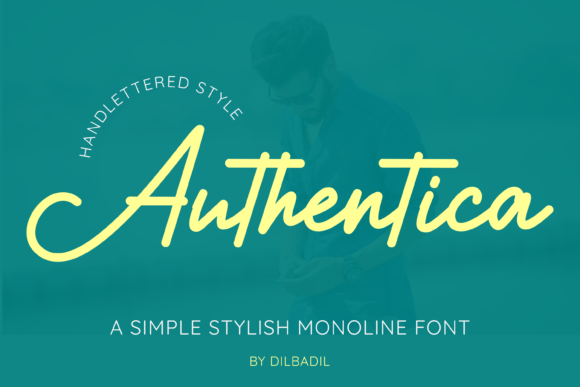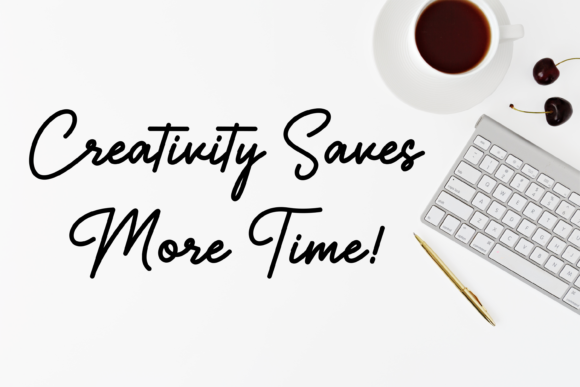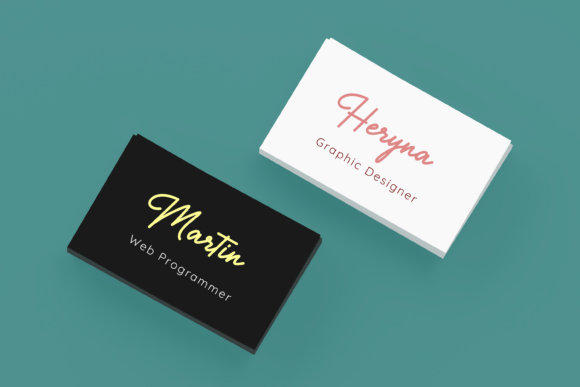
About Authentica Font
Authentica is a simple and stylish handwritten font. It has beautiful and well balanced characters and as a result, it matches a wide pool of designs.